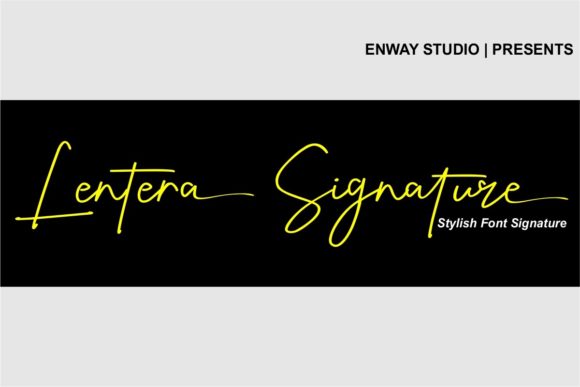
About Lentera Signature Font
Lentera Signature is a thin-lettered, delicate, and stylish script font that offers a versatile and elegant style to your designs. With its PUA encoding, accessing all the glyphs and swashes is effortless, allowing you to unlock its full potential and create spectacular designs.
The slender letterforms of Lentera Signature exude a sense of delicacy and refinement. Each stroke is meticulously crafted, creating a harmonious flow and adding a touch of sophistication to your text. Whether you’re designing logos, invitations, packaging, or any other project, Lentera Signature brings an exquisite beauty to your designs.
With its wide range of glyphs and swashes, Lentera Signature offers endless possibilities for customization. You can easily add flourishes, ligatures, and decorative elements to elevate your designs and create a unique and personalized look. The font’s versatility allows it to adapt to various design styles and applications, making it a valuable asset for your creative projects.
Fall in love with the incredibly versatile style of Lentera Signature and let it inspire you to create visually stunning designs. Whether you’re aiming for a sophisticated and romantic feel or a modern and chic look, this font delivers with its delicate yet stylish appearance.
In summary, Lentera Signature is a thin-lettered, delicate, and stylish script font that offers an incredibly versatile style. With its PUA encoding, you can easily access all the glyphs and swashes, allowing you to create spectacular and personalized designs. Embrace the beauty of Lentera Signature and let it add a touch of elegance to your creative endeavors.